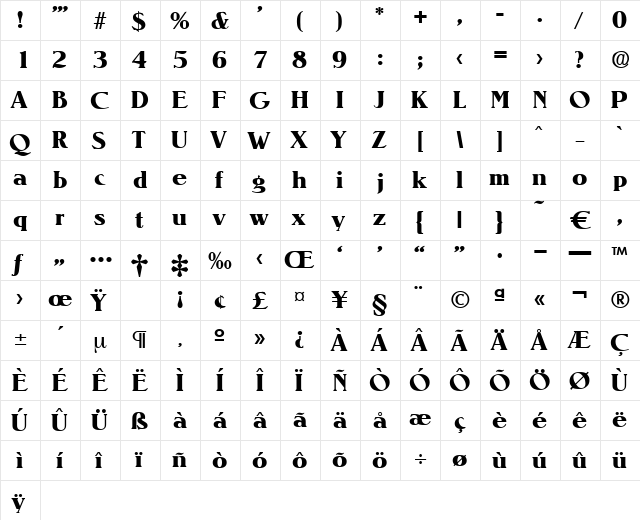
Nevada-Bold Regular
Design Context for Nevada-Bold Typeface
Nevada-Bold takes a measured approach to typography — its balanced proportions and neutral character make it a reliable workhorse for both digital and print work. Its bold stroke weight gives it real presence on the page.